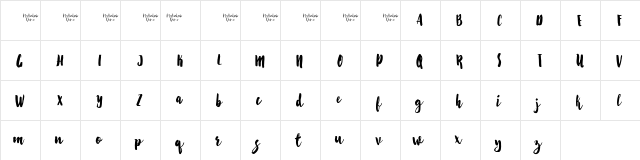
Starshine Demo
| Foundry | DmitriyChirkov |
| Designer | DmitriyChirkov |
Design Context for Starshine Typeface
Starshine is a composed and adaptable typeface that performs quietly and consistently across a wide range of design contexts.